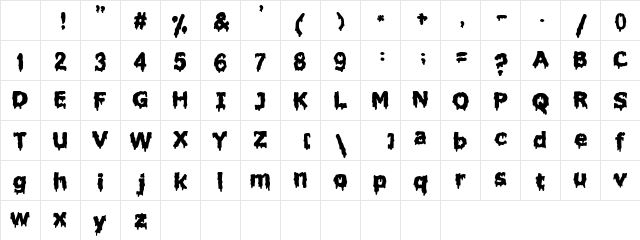
Complete Liquidism part 2 Regular glyph index. Displaying only characters natively supported by Liquidism part 2 Regular font.
Liquidism part 2 is a composed and adaptable typeface that performs quietly and consistently across a wide range of design contexts.